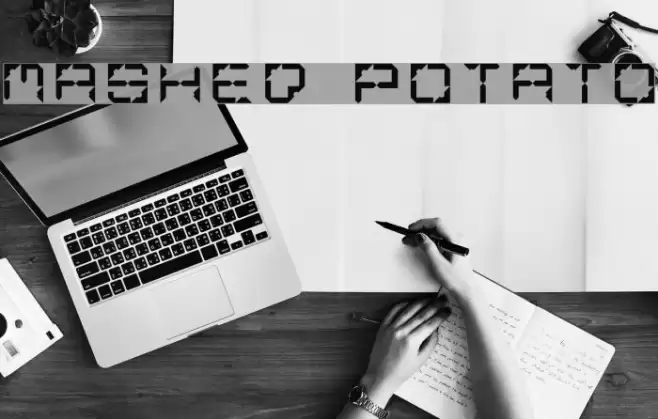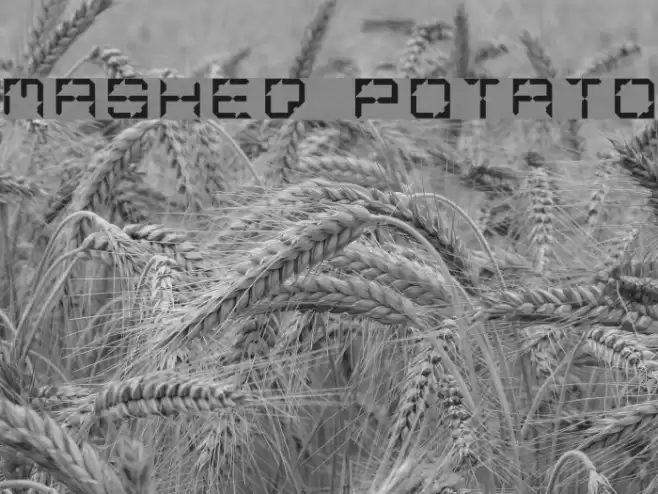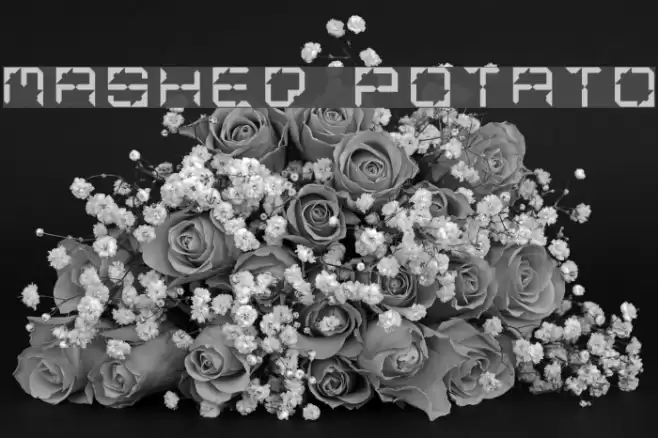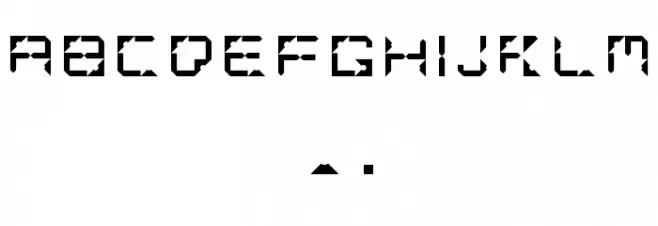
Mashed Potato Font
Mashed Potato Description
This font features a unique, geometric design with a modern and edgy appearance. The characters are constructed using angular shapes and sharp edges, creating a fragmented and dynamic look. The uppercase and lowercase letters maintain a consistent style, with each character exhibiting a distinct, cut-out effect. The numbers and special characters follow the same design principles, ensuring uniformity across the entire typeface. This font's bold and striking appearance makes it ideal for projects that require a strong visual impact.
A geometric, angular font with a modern and edgy design from Uncategorized fonts.
- Proposed Projects: Ideal for branding, posters, album covers, and any design requiring a bold, modern aesthetic.